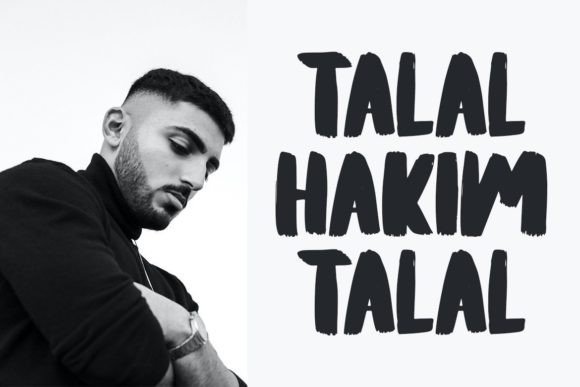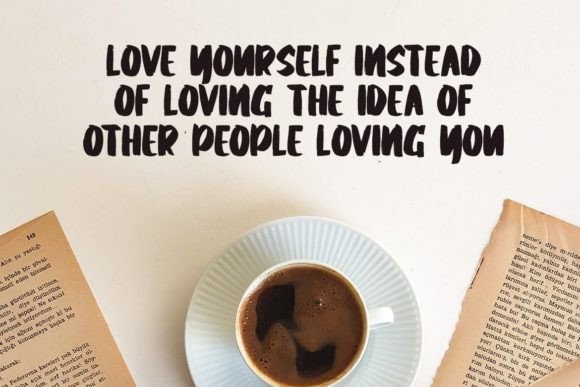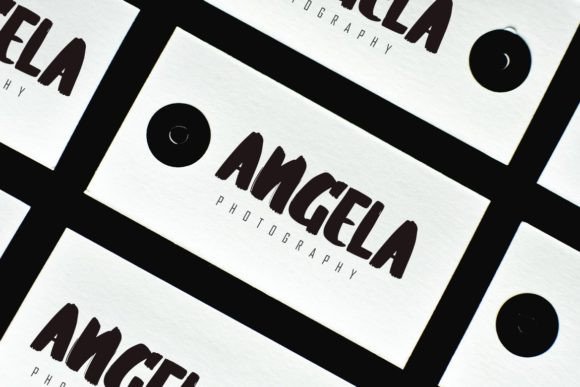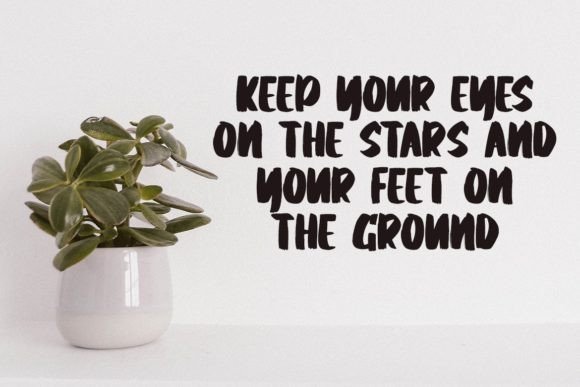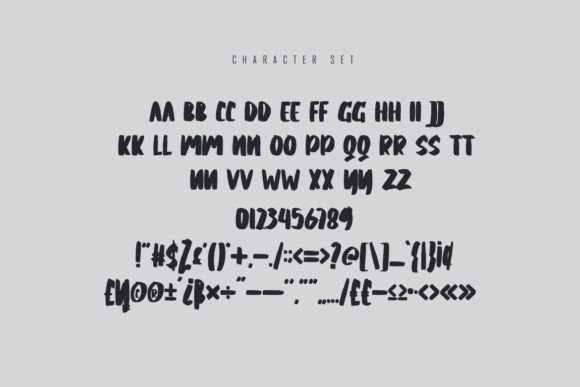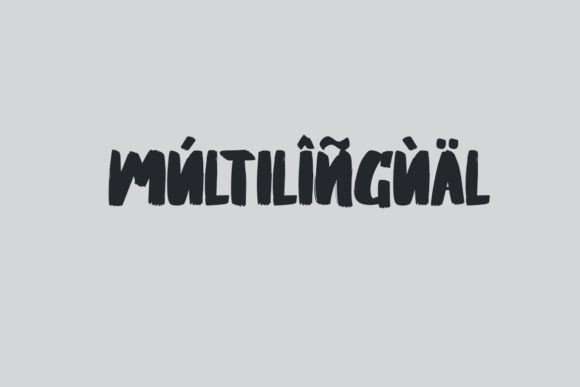
Introducing Harley Font: Elevate Your Designs with a Stylish and Modern Touch
In the world of typography, fonts play a crucial role in making or breaking the visual appeal of a design. For designers and crafters looking to add a touch of urban chic to their projects, Harley Font is an excellent choice. This modern and brushed display font is specifically crafted to give your headlines and logotype projects a stylish, strong, confident, and dynamic look.
What is Harley Font?
Harley Font is a contemporary display font designed to make a statement. Its unique brushed texture and bold lines give it a distinctive look that can instantly elevate your designs. Whether you’re working on a logo, headline, or any other project that requires a strong visual impact, Harley Font is the perfect choice.
Key Features of Harley Font
- Modern and Brushed Texture: Harley Font boasts a modern brushed texture that adds a touch of sophistication to your designs.
- Strong and Confident: The font’s bold lines and sturdy structure make it perfect for creating strong and confident headlines and logotypes.
- Dynamic and Urban: Harley Font’s unique style adds a dynamic and urban touch to your designs, making them stand out from the crowd.
- Highly Versatile: This font is suitable for a wide range of design projects, from logos and headlines to posters and packaging.
Why Choose Harley Font?
With so many fonts available, why should you choose Harley Font for your next project? Here are a few compelling reasons:
- Unique Style: Harley Font’s distinctive brushed texture and bold lines set it apart from other fonts, ensuring your designs will stand out.
- Ease of Use: This font is incredibly easy to use, making it perfect for designers of all skill levels.
- Customization Options: Harley Font can be easily customized to fit your project’s specific needs, allowing you to experiment with different colors, sizes, and styles.
- Time-Saving: With Harley Font, you can create stunning designs in a fraction of the time it would take with other fonts.
How to Use Harley Font in Your Designs
Using Harley Font in your designs is straightforward. Here are a few tips to get you started:
- Pair it with Other Fonts: Combine Harley Font with other fonts to create a unique and visually appealing design.
- Experiment with Colors: Try out different colors and gradients to add depth and interest to your designs.
- Play with Sizes: Experiment with different font sizes to create a hierarchy of information and add visual interest.
Who Can Benefit from Harley Font?
Harley Font is an excellent choice for a wide range of designers and crafters, including:
- Graphic Designers: Add a touch of urban chic to your logos, brochures, and other marketing materials.
- Logotype Designers: Create stunning logotypes that make a lasting impression.
- Web Designers: Use Harley Font to create visually appealing headings and titles for your websites.
- Crafters: Add a professional touch to your handmade products, such as signs, posters, and packaging.
In conclusion, Harley Font is an exceptional modern and brushed display font that can add a stylish touch to your headlines and logotype projects. Its unique texture, bold lines, and dynamic style make it perfect for designers and crafters looking to create stunning designs with an urban twist. With its ease of use, customization options, and versatility, Harley Font is an excellent addition to any designer’s toolkit.